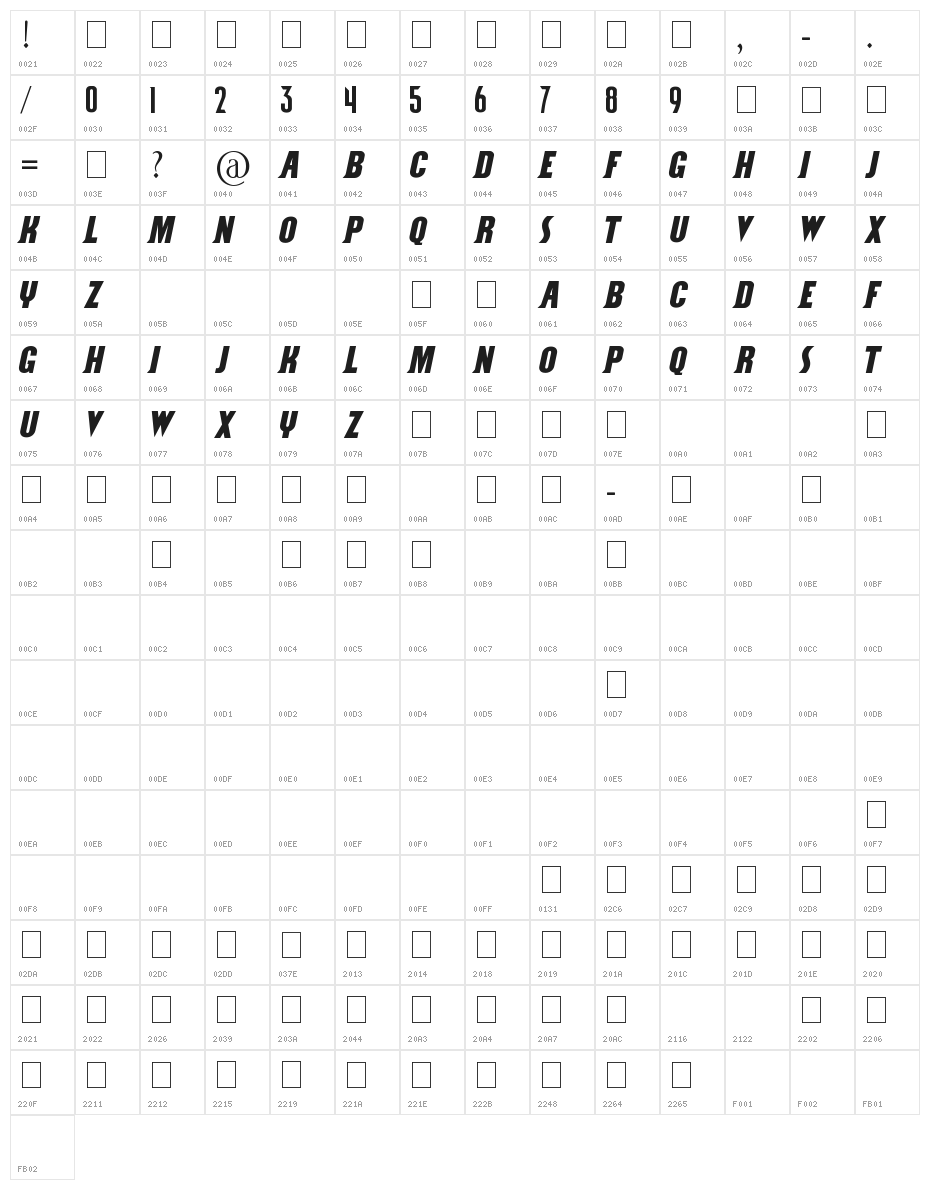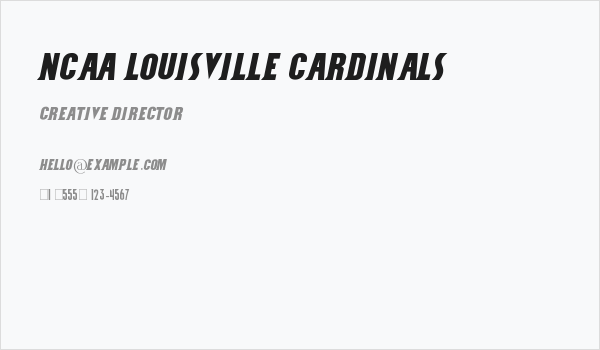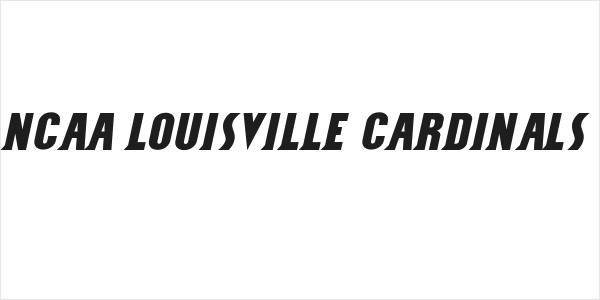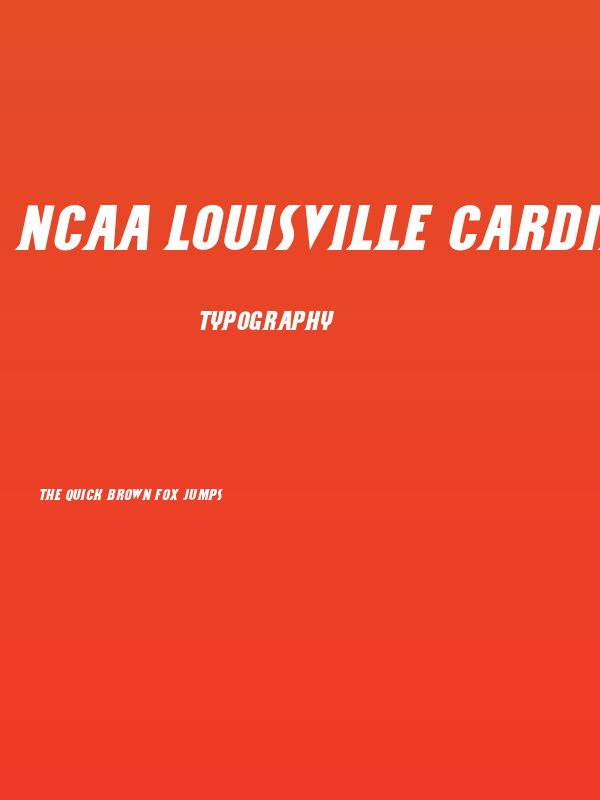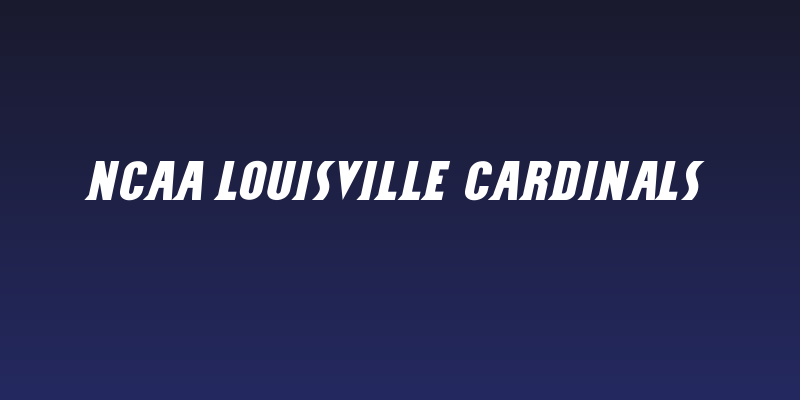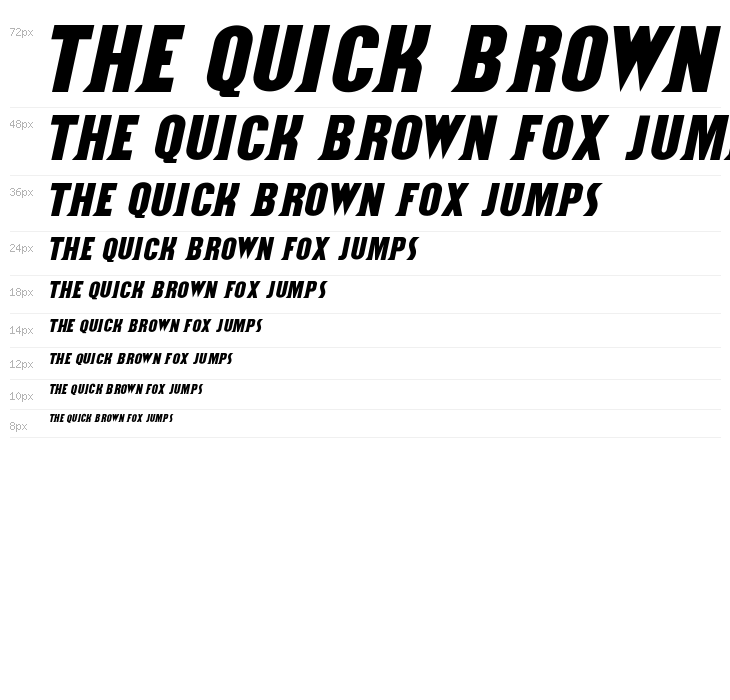
NCAA Louisville Cardinals Font
NCAA Louisville Cardinals Description
This font features bold, uppercase letters with a dynamic, italicized slant, giving it a sense of motion and energy. The characters are tightly spaced, enhancing its compact and impactful appearance. The numbers follow the same bold and slanted style, ensuring consistency across all elements. The font lacks lowercase letters and special characters, focusing on a strong, uppercase presentation. Its bold strokes and angular forms make it ideal for attention-grabbing designs.
| Proposed Projects | Ideal for sports branding, team logos, and dynamic headlines that require a bold and energetic look. |